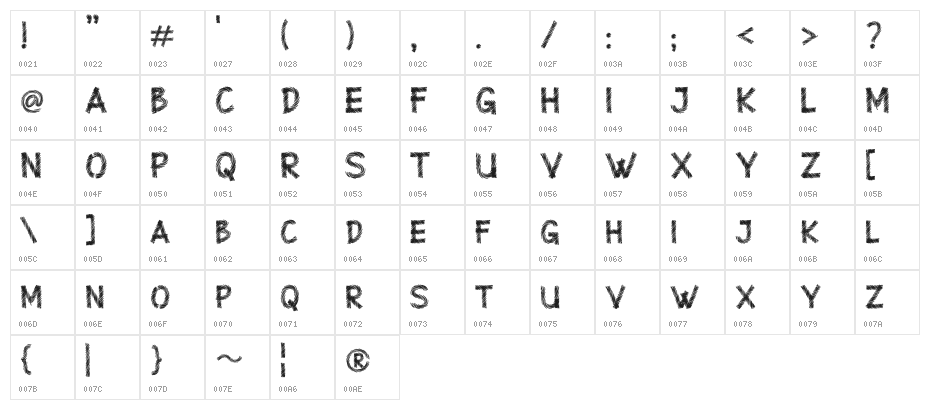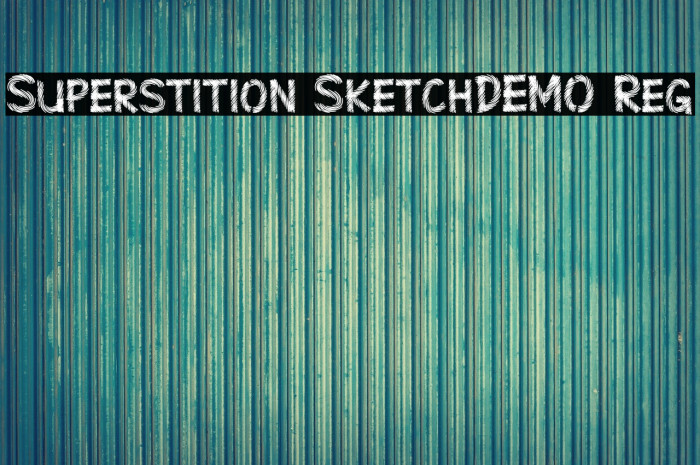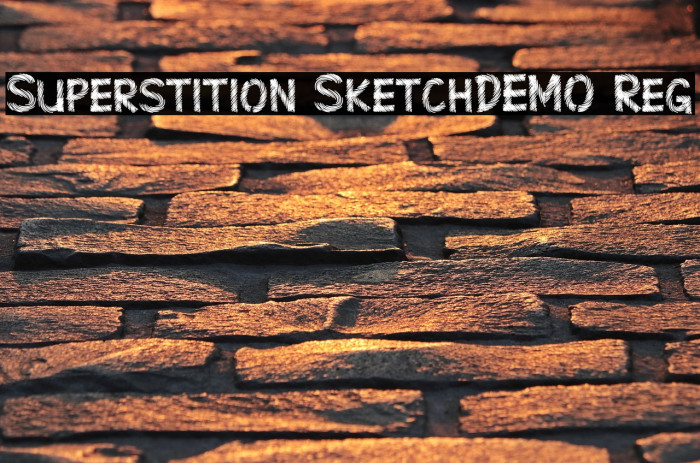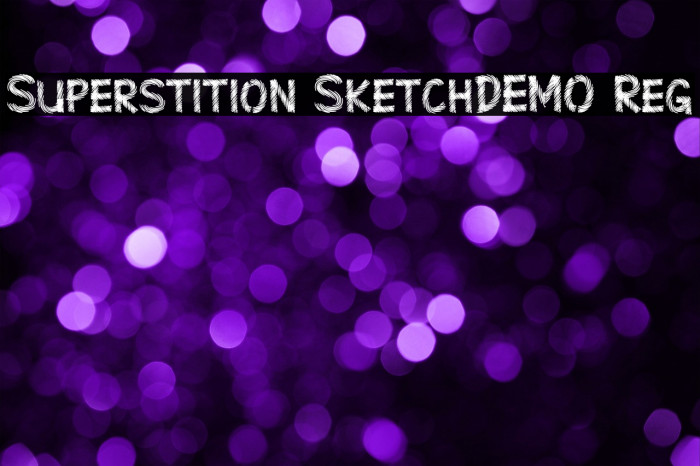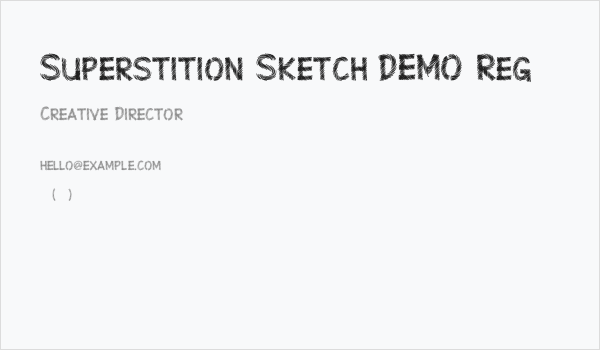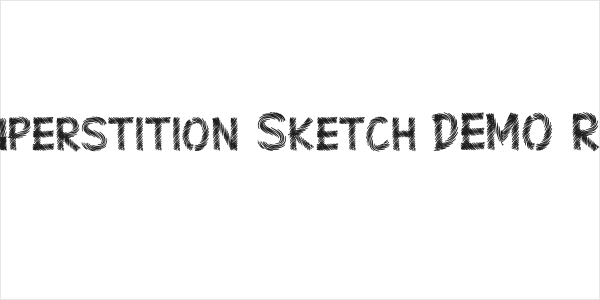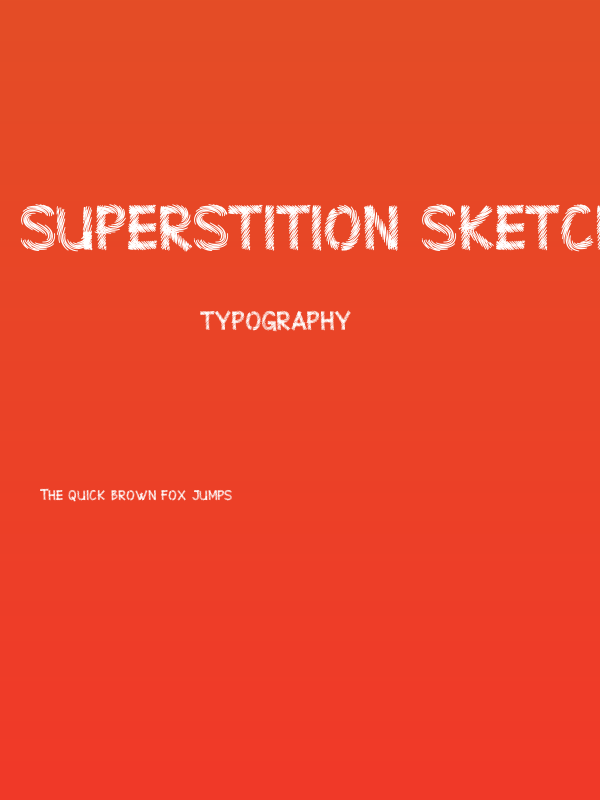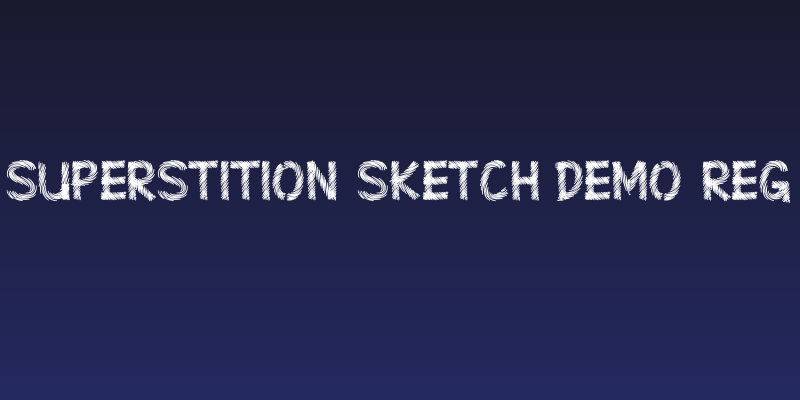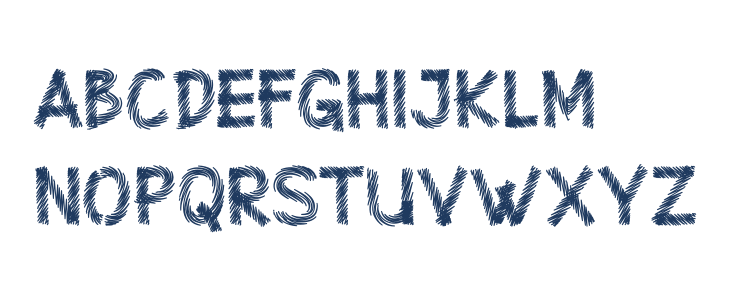
Superstition Sketch-DEMO Reg Font
Superstition Sketch-DEMO Reg Description
This font features a unique, sketch-like appearance with a hand-drawn quality. Each character is composed of multiple overlapping strokes, creating a textured and dynamic look. The letters are bold and prominent, making them stand out with a sense of movement and energy. The irregularity in the strokes adds a playful and artistic touch, making it suitable for creative and informal designs. The font maintains a consistent style across uppercase and lowercase letters, as well as numbers and special characters, ensuring a cohesive visual experience.
| Proposed Projects | Ideal for artistic projects, posters, album covers, and creative branding. |